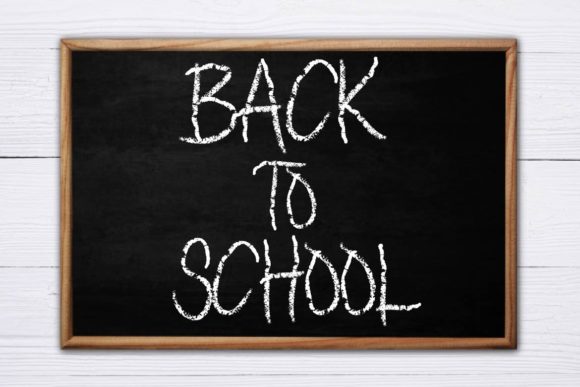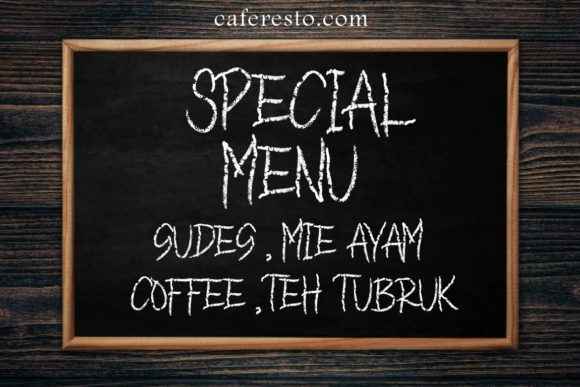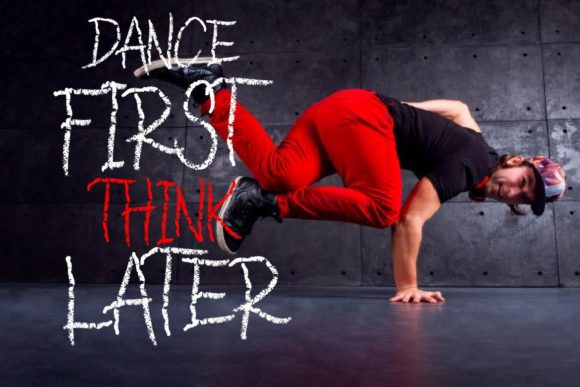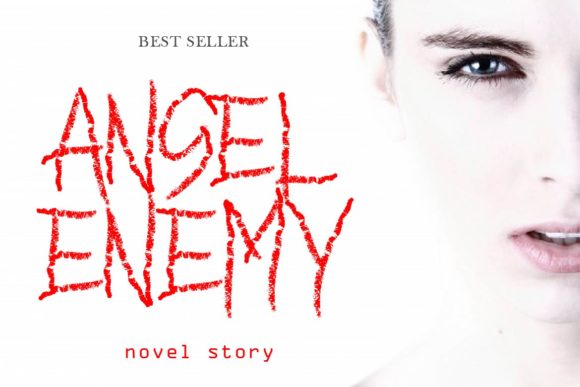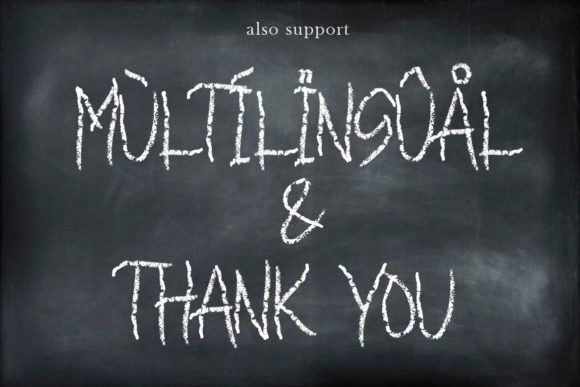
Unleash Your Inner Rebel with the Chalk Hand Font
Have you ever found yourself scribbling on a chalkboard in a creative frenzy, letting your thoughts and emotions flow freely? That’s exactly the kind of raw energy that the Chalk Hand Font embodies. This rough and edgy display font is inspired by the imperfections of chalk writing, giving it a unique charm that’s sure to capture attention.
Designed to add a touch of rebellion to your designs, the Chalk Hand Font is perfect for making a statement. Whether you’re a graphic designer, a typography enthusiast, or simply someone who loves to experiment with new fonts, this font is a valuable addition to your toolkit. Its versatility and bold character make it an ideal choice for creating eye-catching headlines, logos, and other design elements.
- Unique Characteristics: Chalk Hand Font features a unique, handwritten style with a distressed texture, giving it a nostalgic and vintage feel.
Chalk Hand Font Review
Chalk Hand is a unique, hand-drawn font that I have mixed feelings about. On one hand, I love the ✨ whimsical and playful feel it gives to any text. It’s perfect for creating a casual, laid-back atmosphere in designs. The irregularities in the letterforms add a touch of personality that makes it stand out.
One of the things that works well about Chalk Hand is its versatility. It can be used in a variety of contexts, from children’s books to food labels. The font is also highly customizable, allowing designers to adjust the size, spacing, and color to suit their needs.
However, there are some limitations to consider. ⚠️ The font may not be suitable for formal or professional projects, as its casual nature may not convey the desired level of sophistication. Additionally, the irregularities that make the font unique can also make it difficult to read in certain contexts.
- Unique, hand-drawn design
- Perfect for casual, laid-back designs
- May not be suitable for formal or professional projects
- Can be difficult to read in certain contexts
In conclusion, Chalk Hand is a fun and playful font that can add a unique touch to designs. While it may not be suitable for every project, it’s a great option for those looking to create a casual, whimsical atmosphere.
Use the Chalk Hand Font for creative projects that require a playful and casual feel, such as:
- Wedding invitations
- Children’s party materials
- DIY crafts